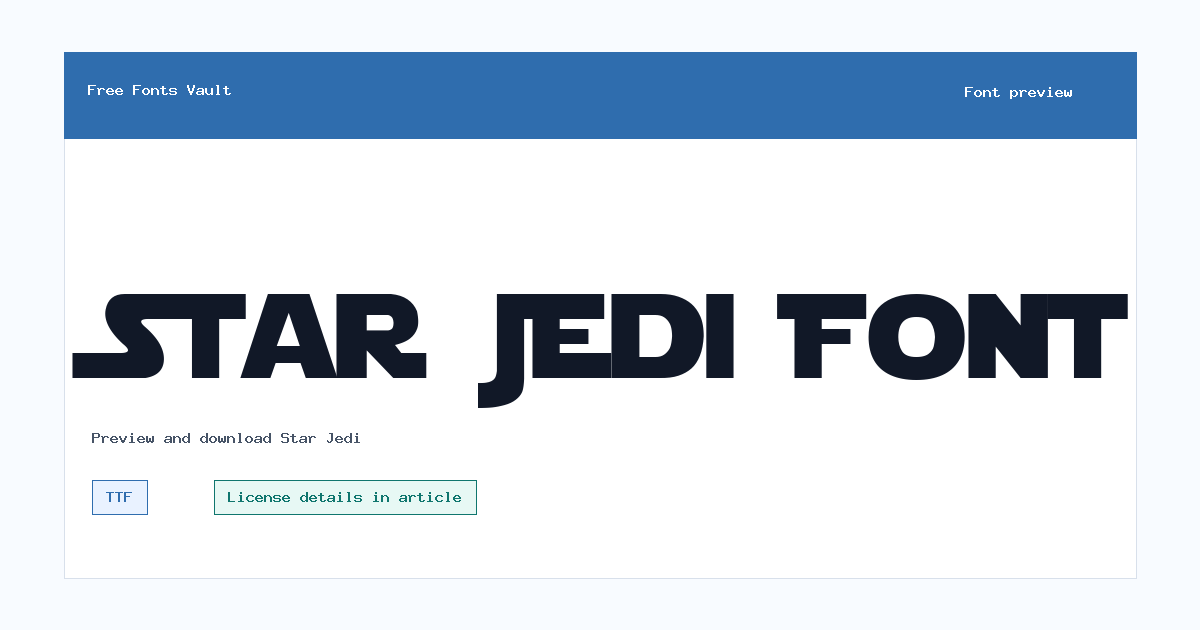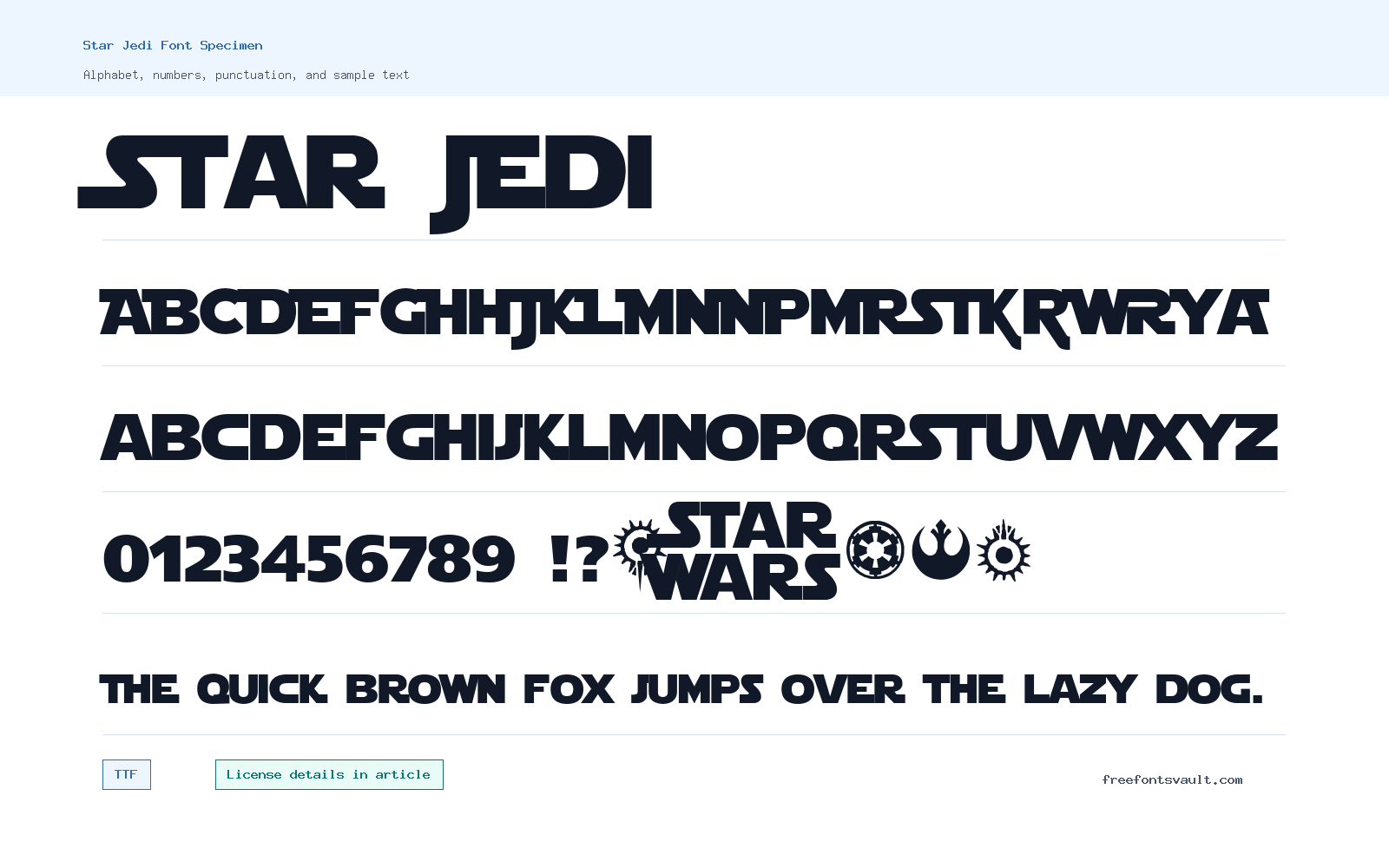
Star Jedi
Star Jedi Font
Star Jedi is a bold sci-fi display font with wide, connected letterforms inspired by space-fantasy movie title styles. It is built for short, dramatic text rather than everyday reading.
About Star Jedi Font
Star Jedi was created by Boba Fonts / Davide Canavero and is widely shared as a movie-style sci-fi typeface. Its letters have heavy geometric shapes, angled cuts, and stretched joins that make words feel like a single title graphic. That strong visual identity works best when the text is short, large, and centered.
Use Star Jedi for fan-style titles, party invitations, sci-fi posters, game-night graphics, thumbnails, parody artwork, and mockup logos. It is not a good choice for body text, long captions, or small interface labels because the connected shapes and heavy forms can reduce readability at smaller sizes. Try your own words in the preview first, especially names with tight letter combinations.
• Bold, expanded sci-fi display style with connected wordmark-like shapes
• Best suited to uppercase-style titles, short names, posters, and fan graphics
• Sci-fi poster headlines
• Fan-style title cards
• Space party invitations
• Game-night graphics
• YouTube thumbnails
• Parody or concept logo mockups
• Short display text
Star Jedi is credited to Boba Fonts / Davide Canavero. Luc Devroye’s type design index lists Boba Fonts as Davide Canavero from Italy and includes StarJedi among his late-1990s Star Wars-inspired fonts.
Keep the text short and give it generous spacing around the word. Star Jedi has the most impact in large sizes, especially on dark backgrounds, poster layouts, badges, and title images. Avoid using it for paragraphs or small navigation text.
What kind of font is Star Jedi?
Star Jedi is a sci-fi movie-style display font with bold, connected letterforms. It is made for titles, posters, fan graphics, and other short text designs.
Who designed Star Jedi?
Star Jedi is credited to Boba Fonts / Davide Canavero.
Is Star Jedi an official Star Wars font?
No official affiliation is stated in the the public listings. Treat it as a fan-style sci-fi display font, not an official Lucasfilm, Disney, or Star Wars typeface.
What is Star Jedi best used for?
It works best for short titles, fan posters, invitations, thumbnails, game graphics, parody layouts, and mockup logos. It is not ideal for long reading text.